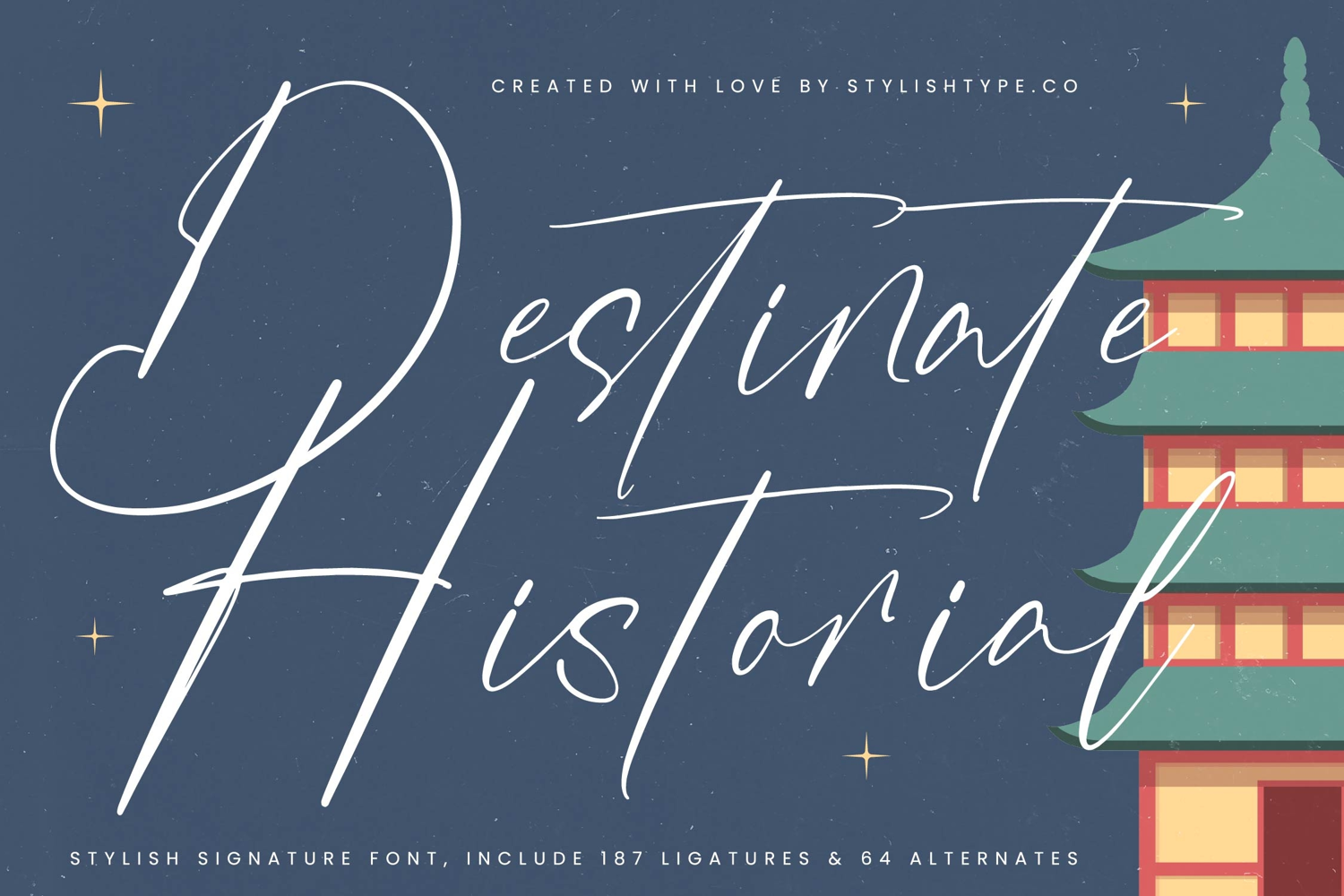
Destinate Historial - Stylish Signature Font
Destinate Historial Italic
Destinate Historial
Destinate Historial is a stylish signature font that combines the refinement of handwritten calligraphy with the versatility of modern typography. Designed with an impressive 187 ligatures and 64 alternates, this typeface provides exceptional creative freedom, allowing you to craft unique lettering compositions that feel both authentic and sophisticated. Each stroke flows with elegant rhythm and graceful detail, making this font perfect for projects that demand a sense of luxury, intimacy, and professionalism.